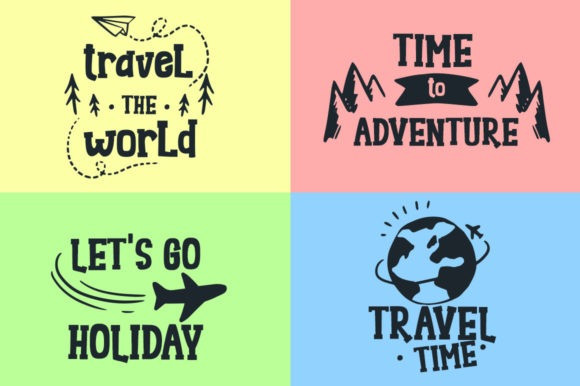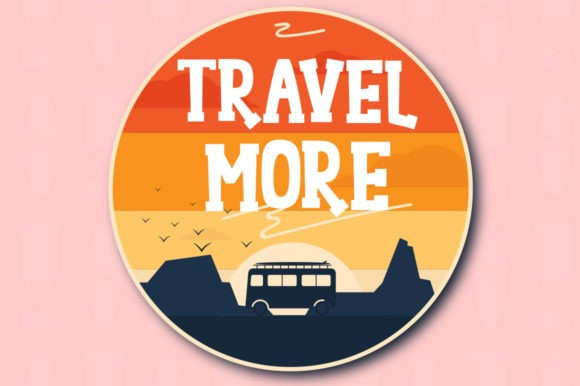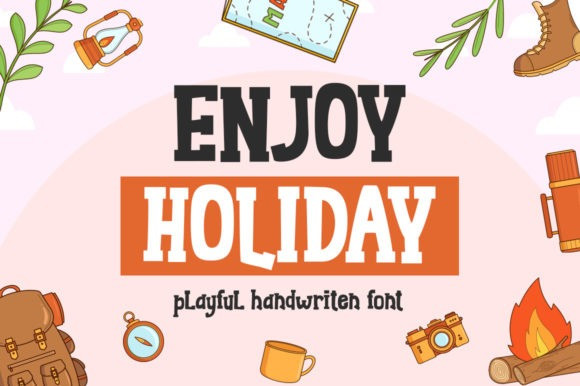
Enjoy Holiday Font
Enjoy Holiday Display Font is a cool and bold display font. Whether you’re looking for fonts for Instagram or calligraphy scripts for DIY projects, this font will turn any creative idea into a true piece of art!